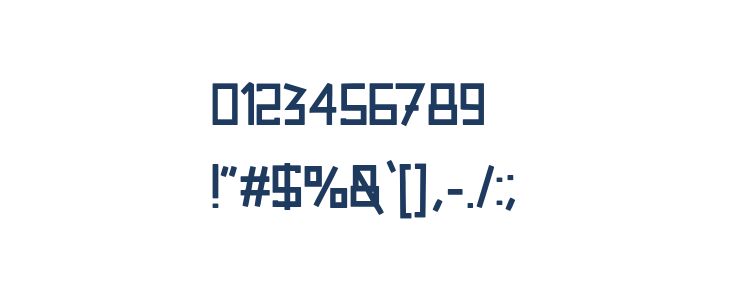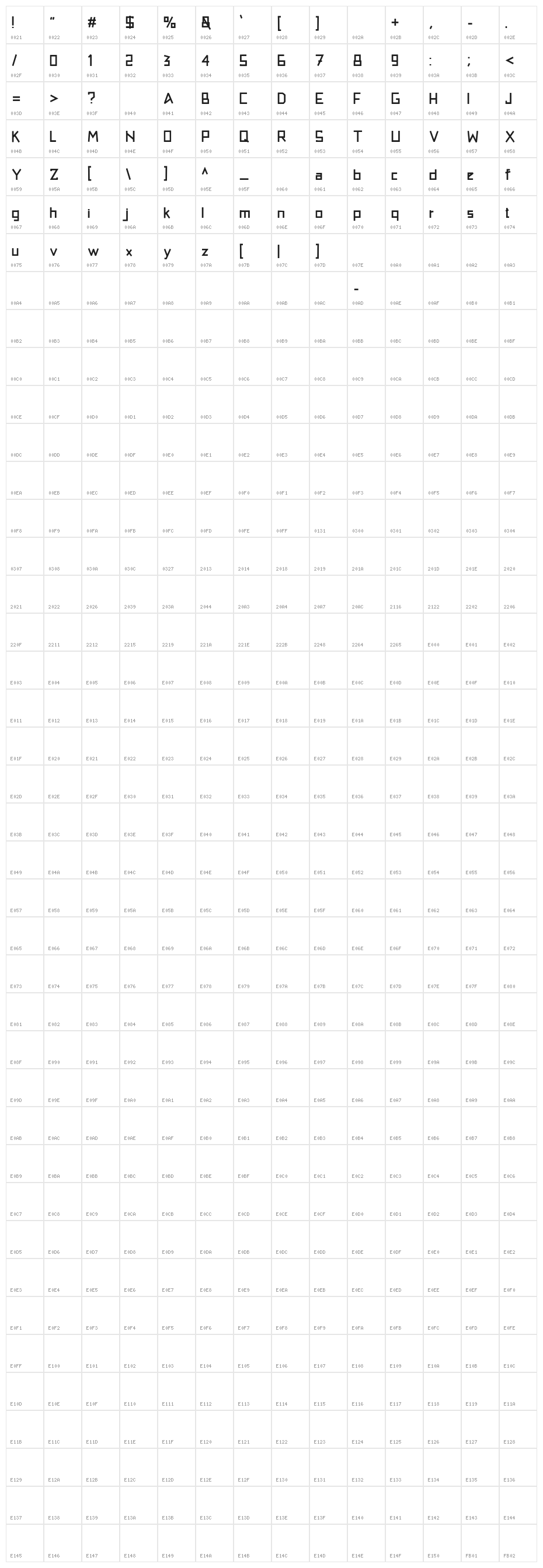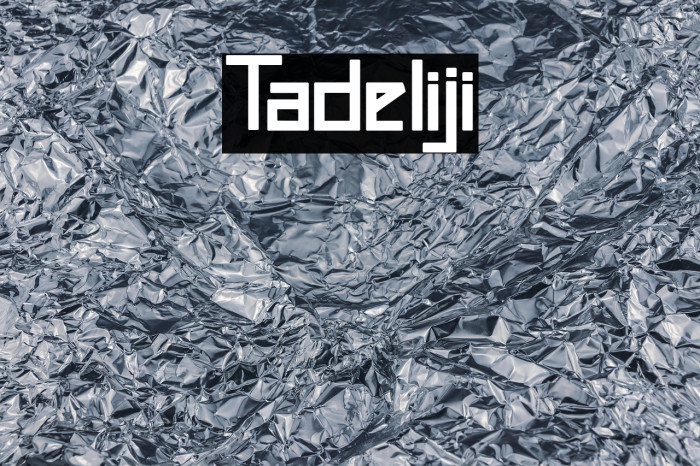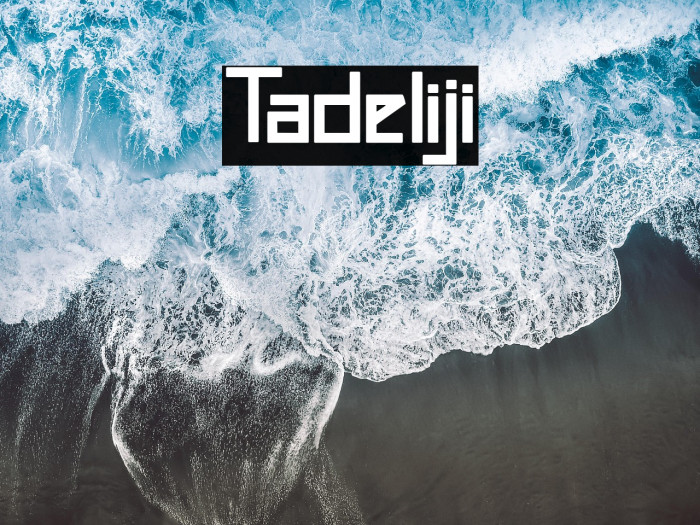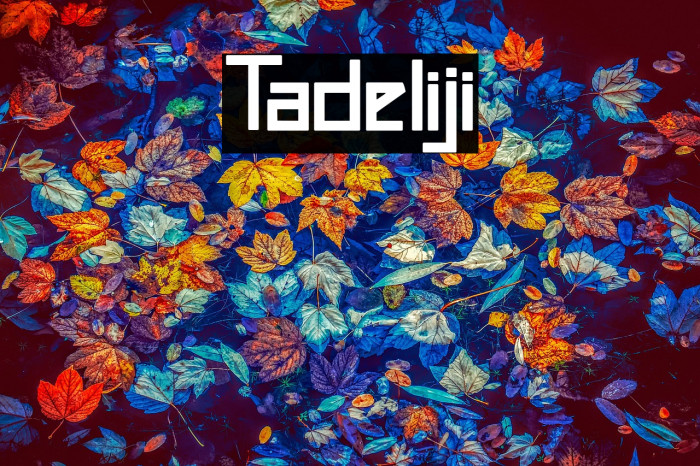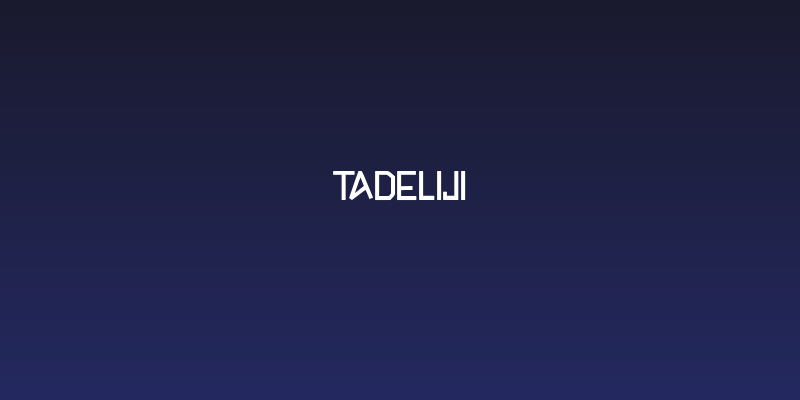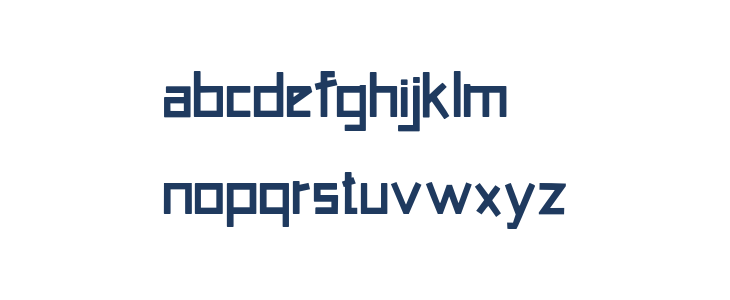
Tadeliji Font
Tadeliji Description
This font features a geometric and angular design, characterized by sharp edges and a futuristic appearance. The uppercase letters are bold and distinct, with a consistent height and width that give them a uniform look. The lowercase letters maintain the angular style, offering a unique twist on traditional letterforms. Numbers are similarly styled, with a modern, tech-inspired aesthetic. Special characters are included, maintaining the same sharp and edgy design. Overall, this font presents a cohesive and striking visual identity, ideal for projects requiring a modern and bold statement.
Proposed ProjectsIdeal for tech branding, sci-fi posters, video game titles, and modern digital interfaces.